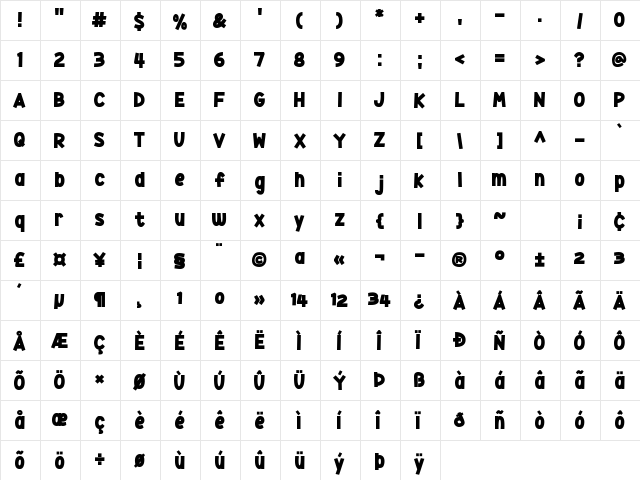
Yokelvision Regular
Design Context for Yokelvision Typeface
Yokelvision offers clean, dependable letterforms without strong stylistic allegiance, making it a practical choice for designers who need flexibility.
Pro Tip: Use Yokelvision in both headline and body roles to test its range before committing to a single application.